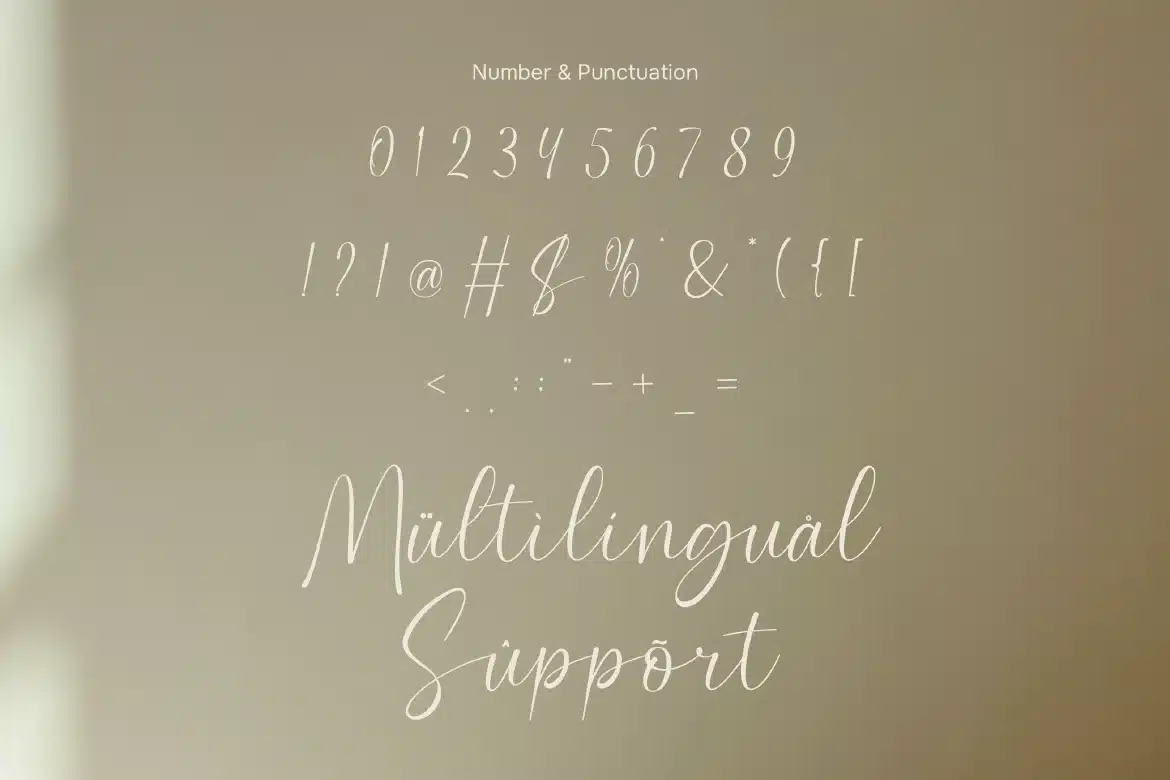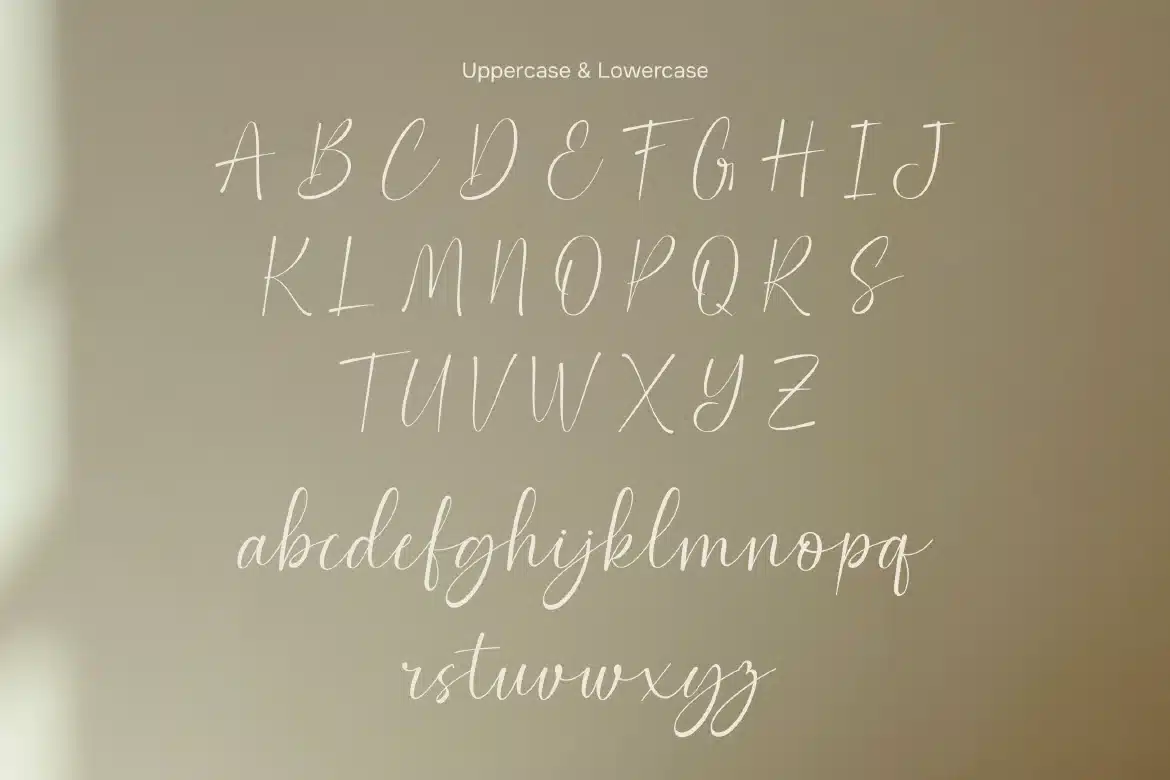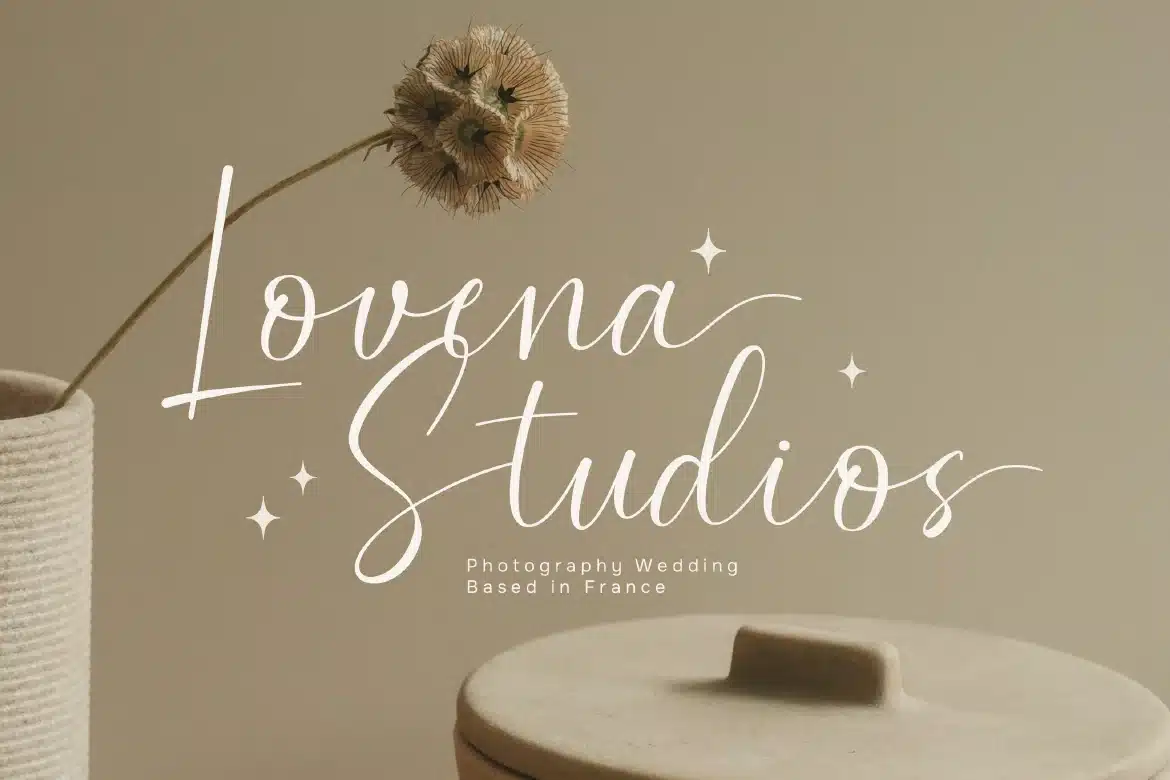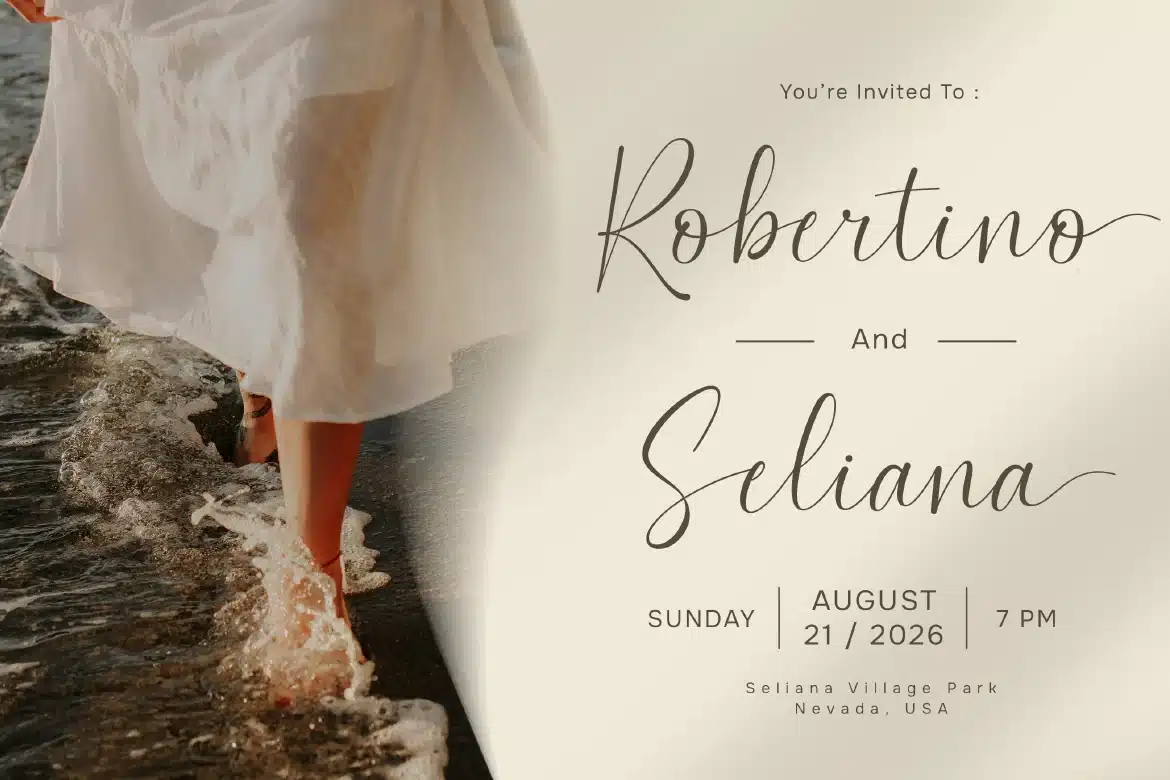
Elegant Script Font – Seralune
Elegant Script Font - Seralune
Seralune is an elegant script font designed to bring a sense of beauty, refinement, and artistic flow to your designs. Featuring graceful handwritten strokes and smooth connections, this typeface creates a natural and sophisticated look that feels both modern and timeless. Enhanced with stylish swashes, Seralune allows you to add expressive flourishes and decorative accents, giving your typography a more personalized and stylish touch. Each character is carefully crafted to maintain balance and readability while still delivering a soft, romantic charm.
Who Should Use Seralune?
Seralune is perfect for designers and brands who want a sophisticated script font with a graceful and expressive style. It’s especially suited for projects that require a feminine, elegant, and high-end appearance.
Wedding invitations and stationery
Luxury branding and logos
Beauty and fashion design
Signature and personal branding
Packaging and product labels
Social media content
Editorial and creative layouts
Decorative typography